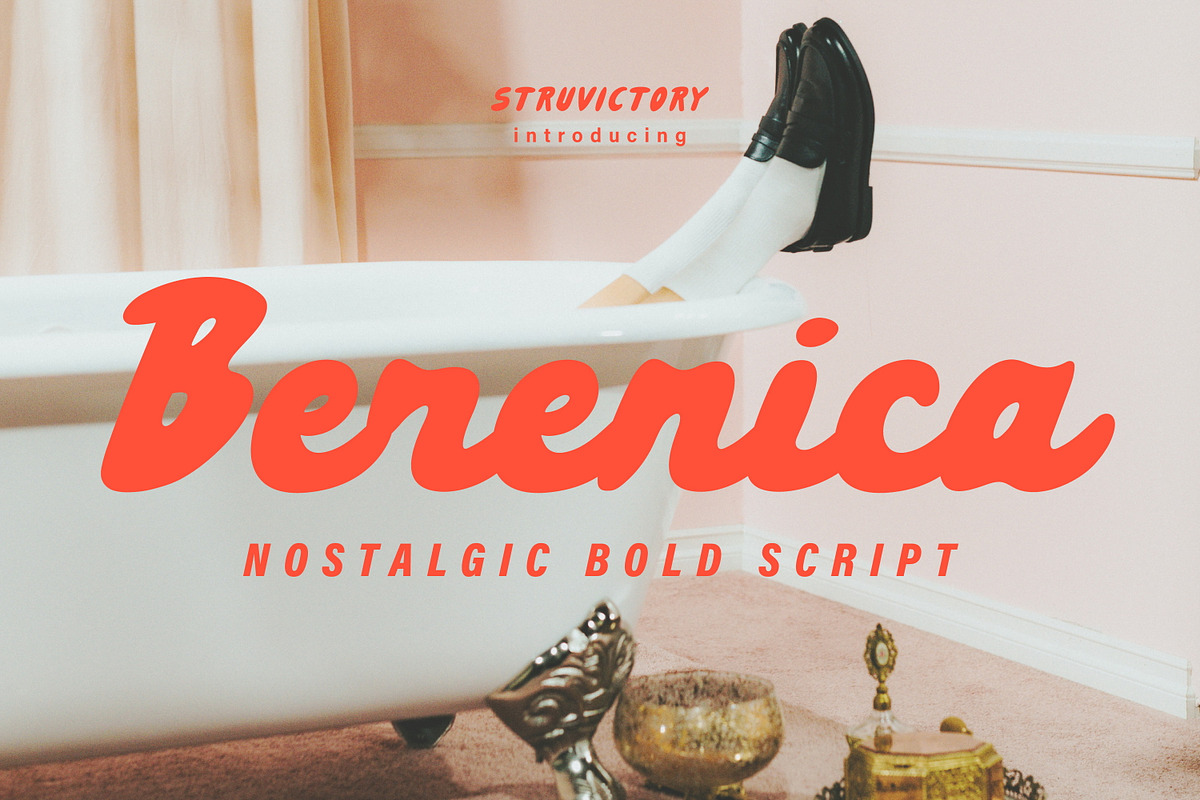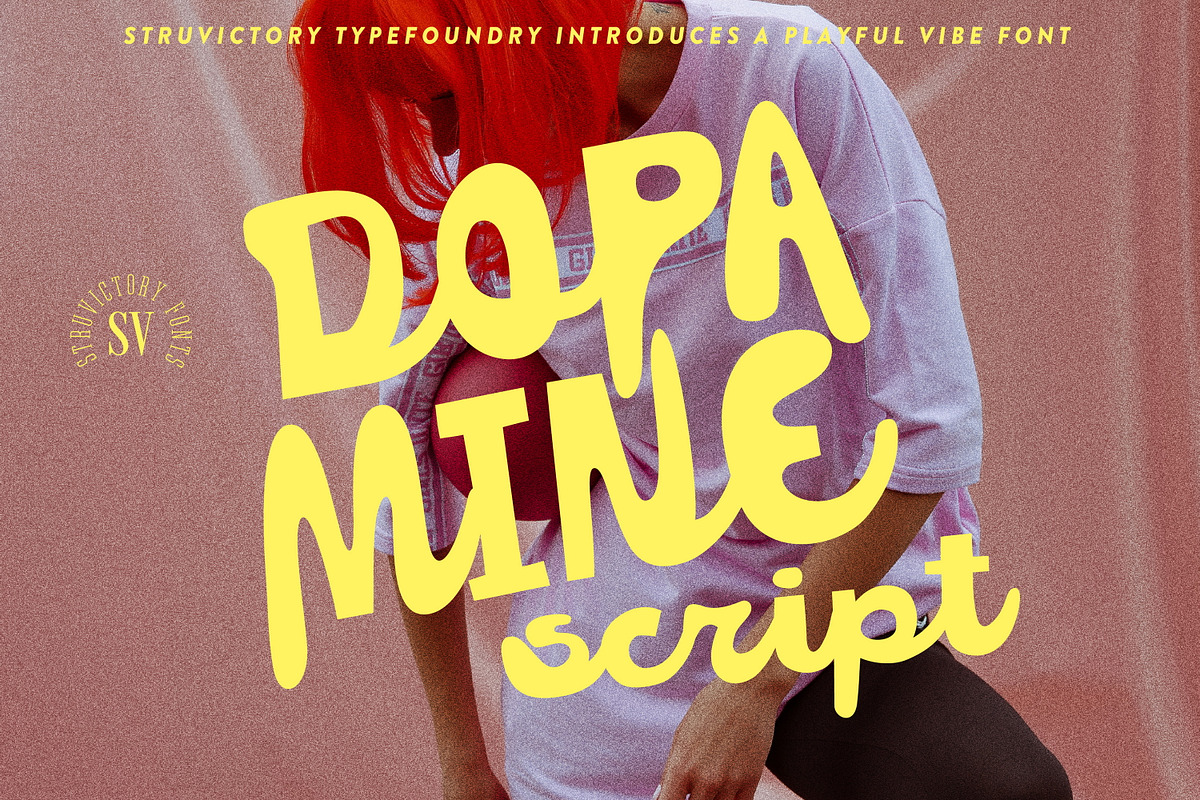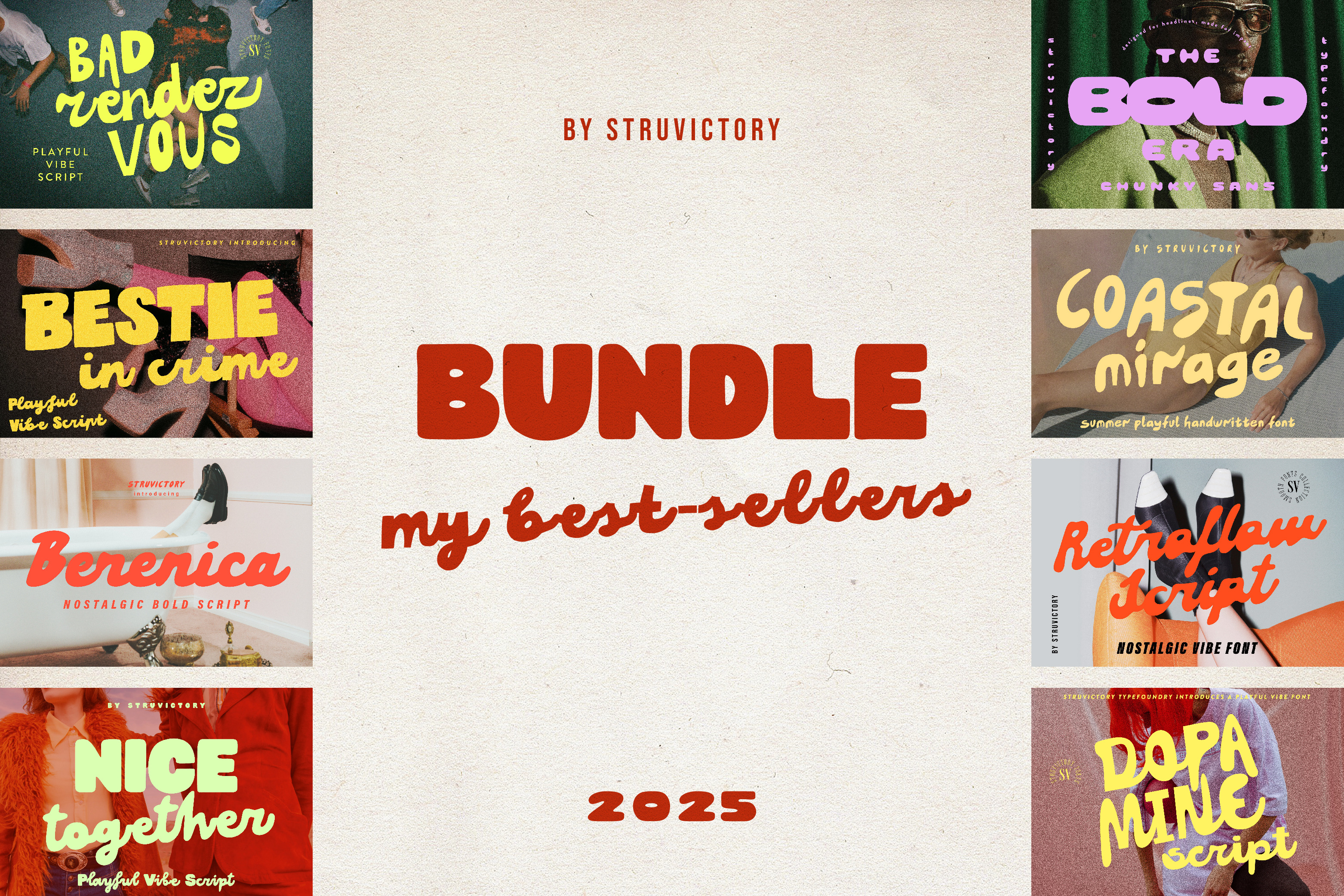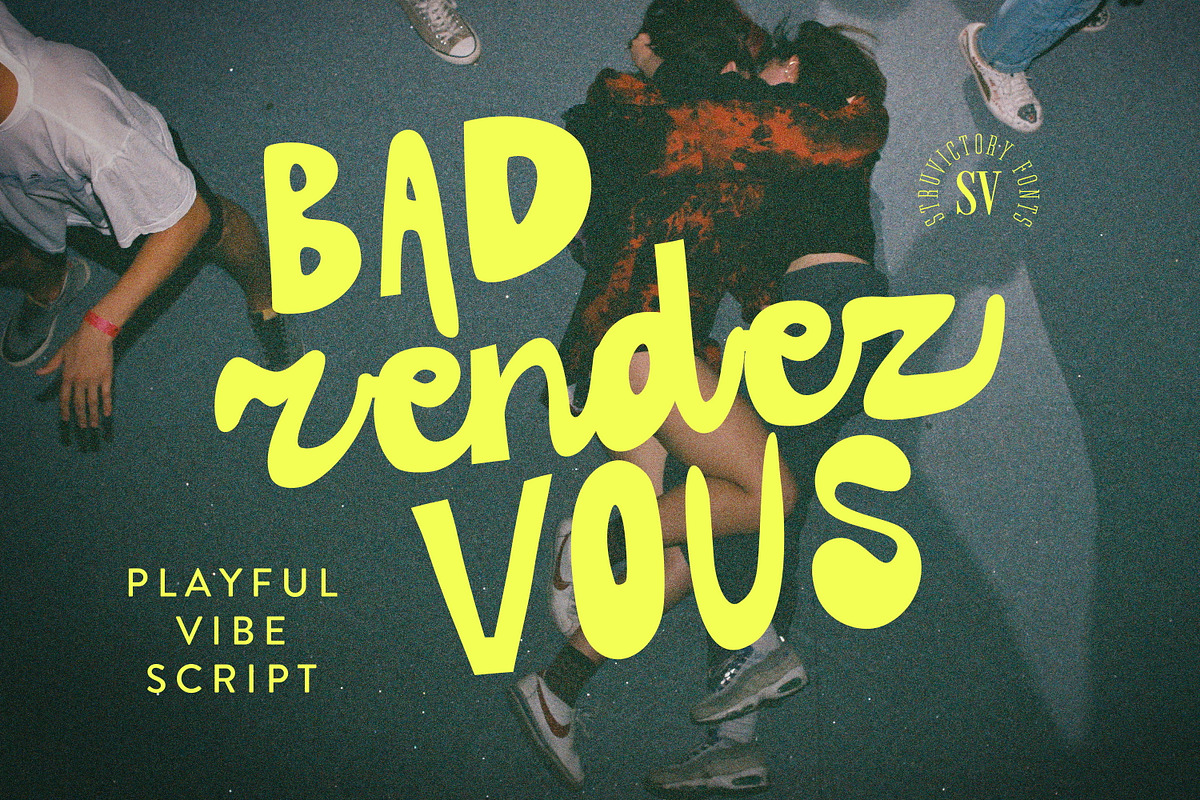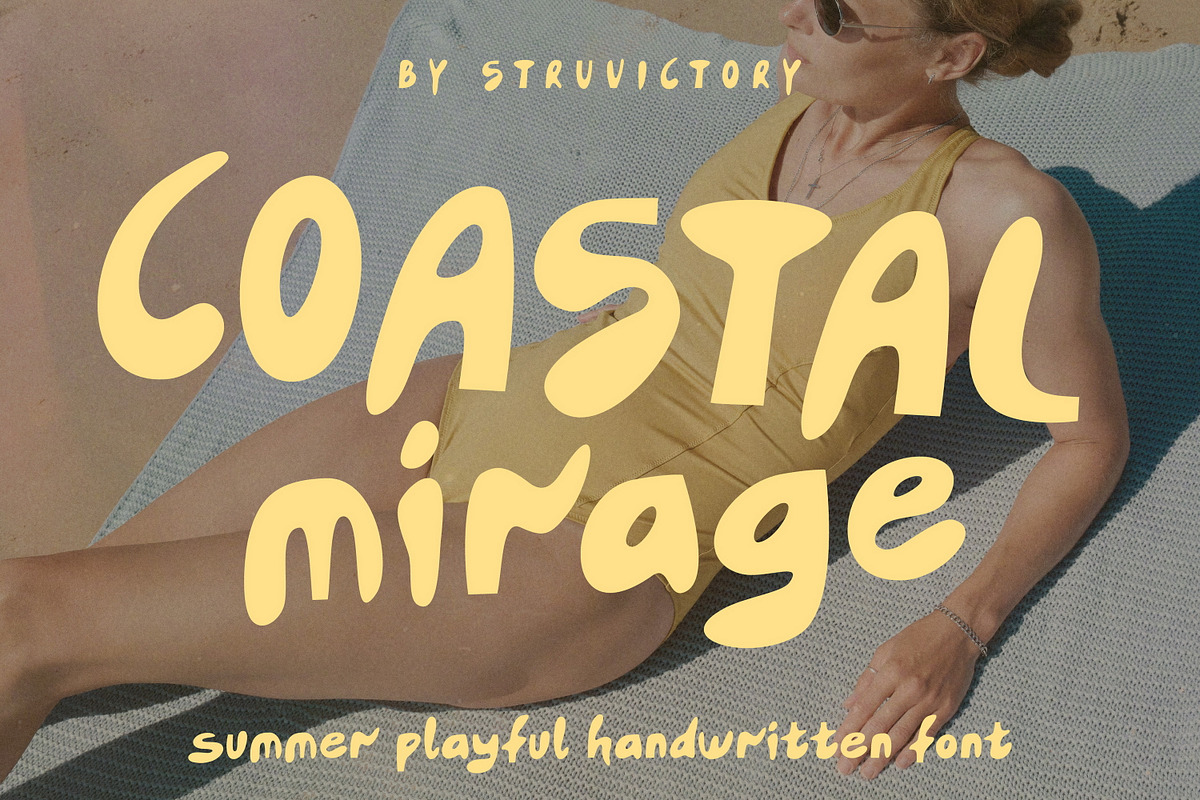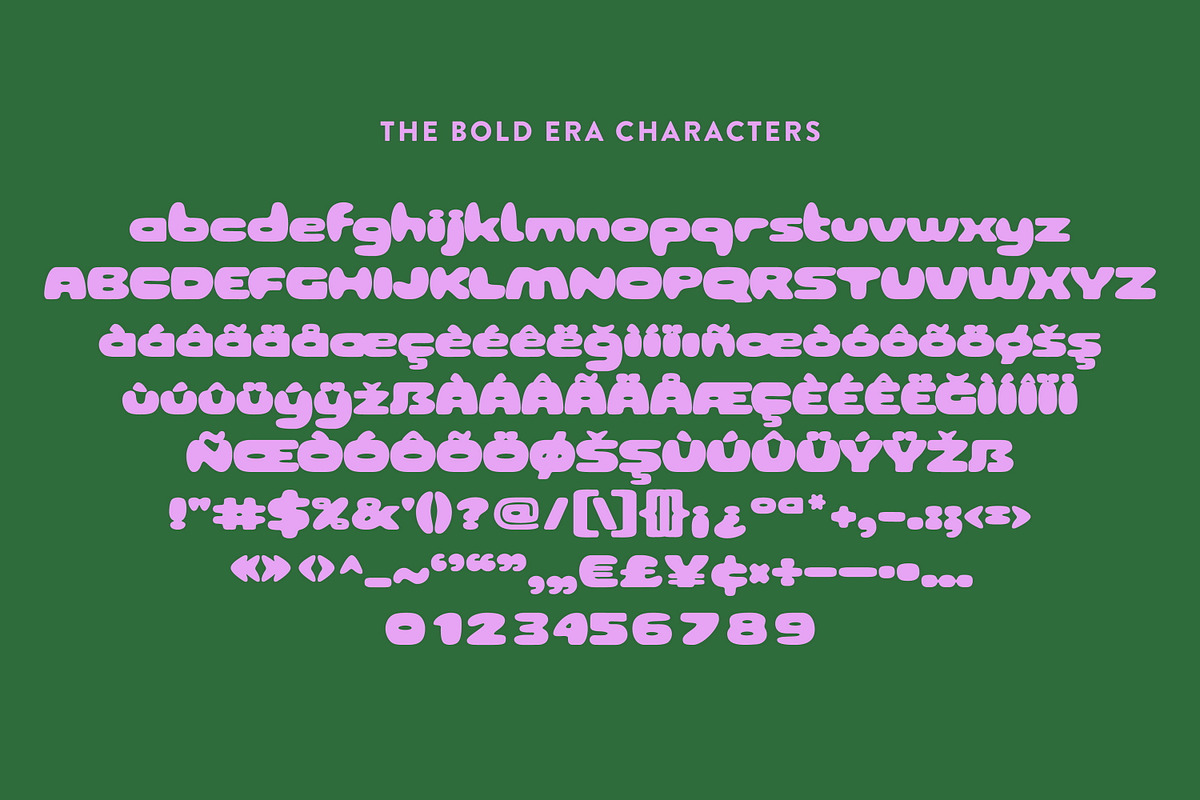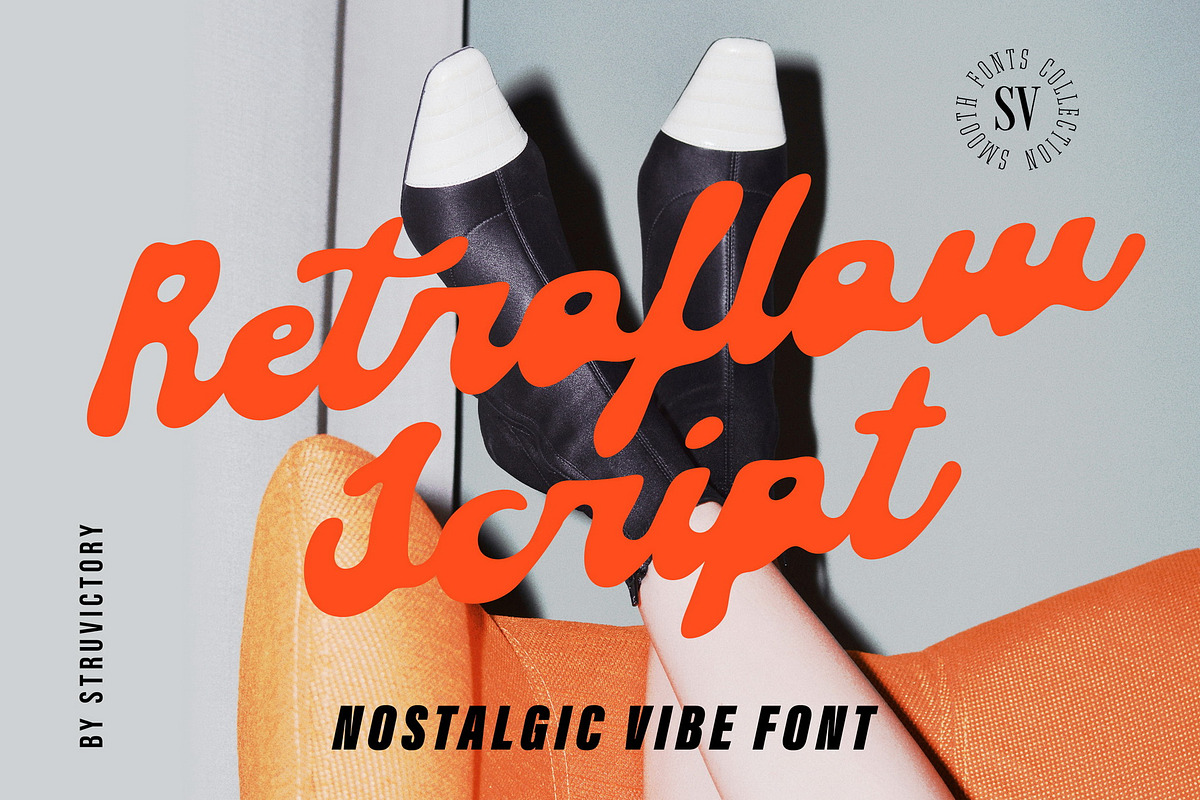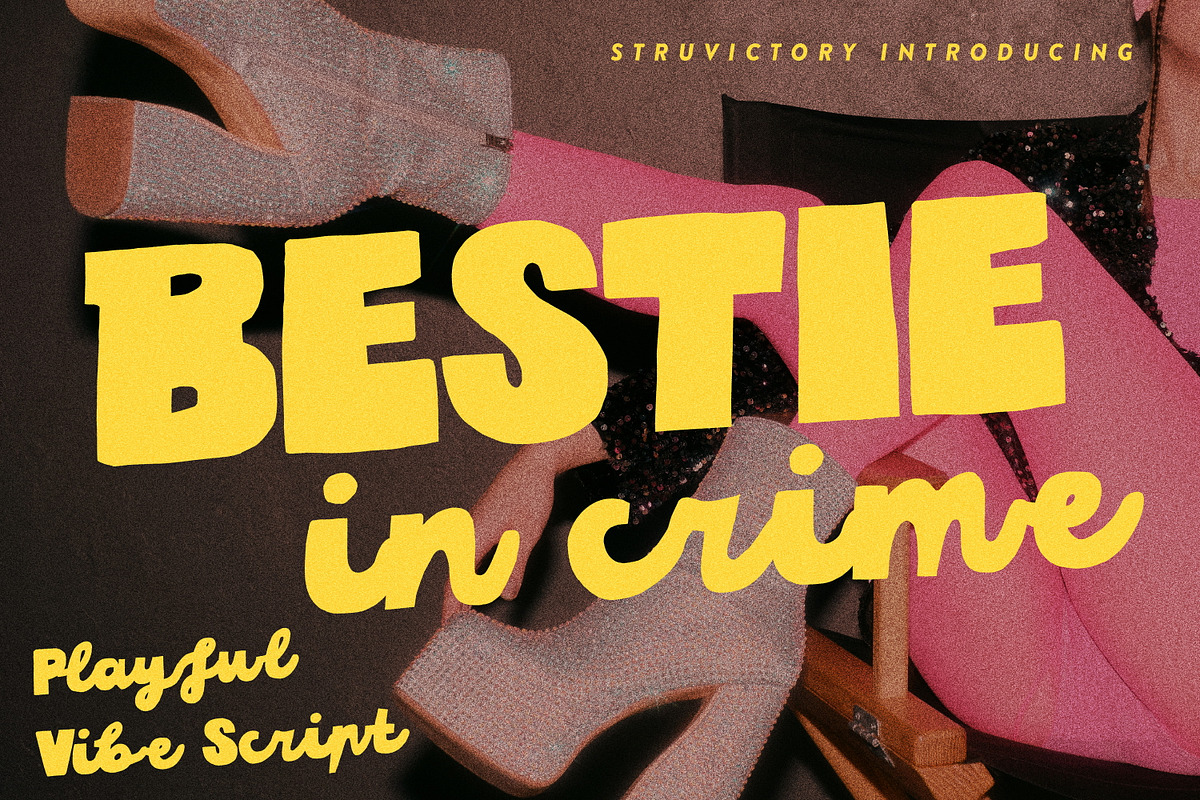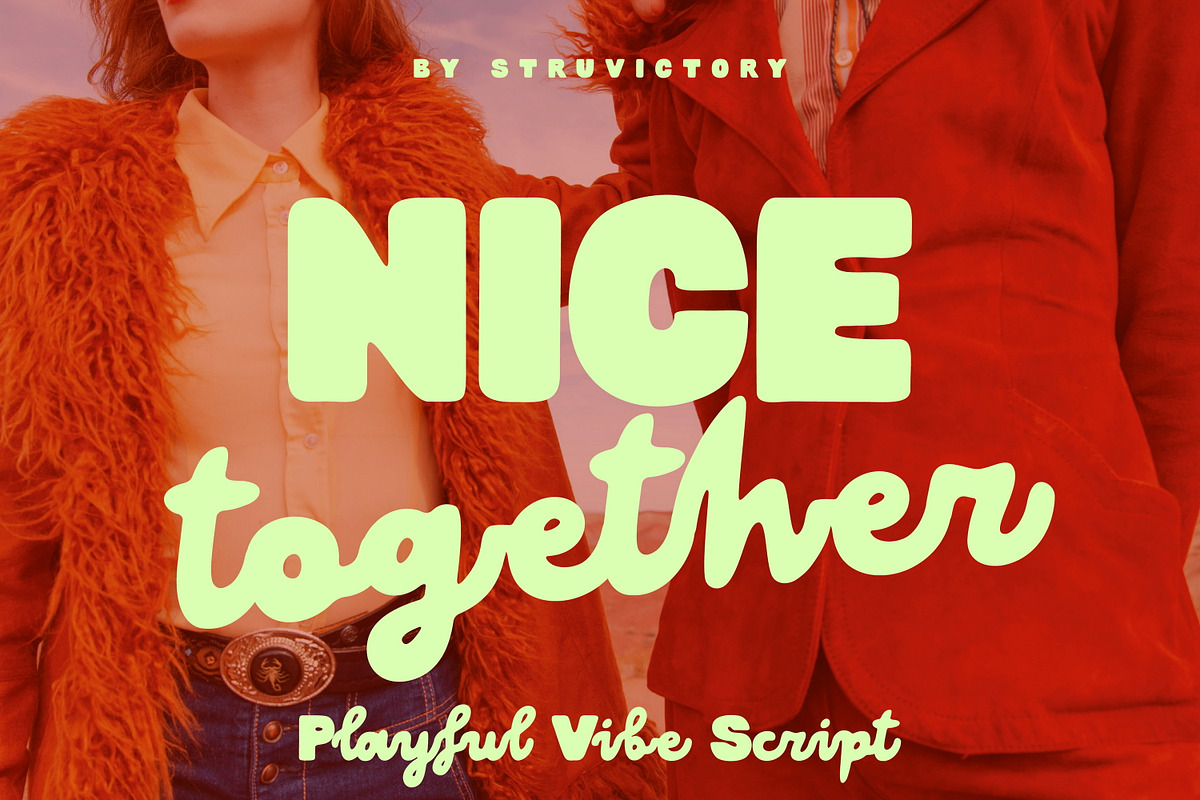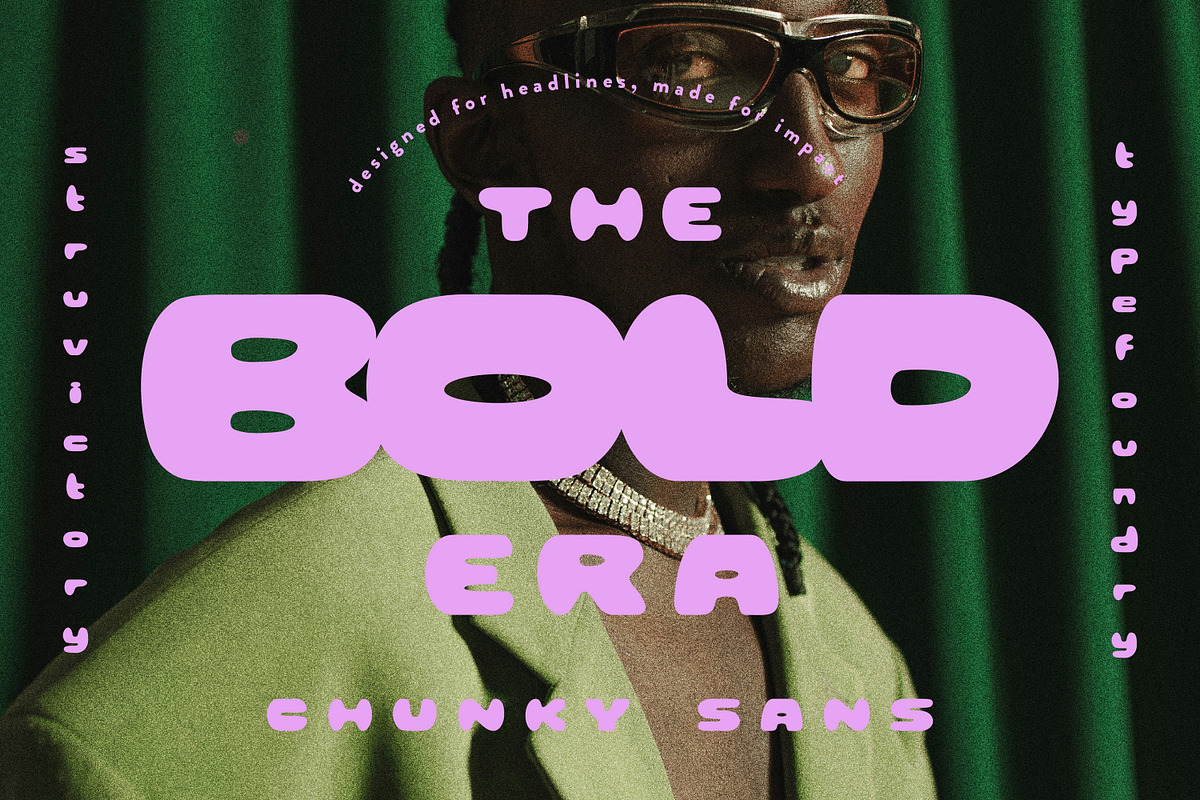
Best-sellers Vibe Fonts Bundle
Unlock your best-selling vibe. Get this curated bundle of 8 top fonts of 2025: nostalgic scripts and smooth sans-serifs, at 70% off. Perfect for branding, social media, and designs that feel fresh, familiar, and full of character. The bundle includes the following products: